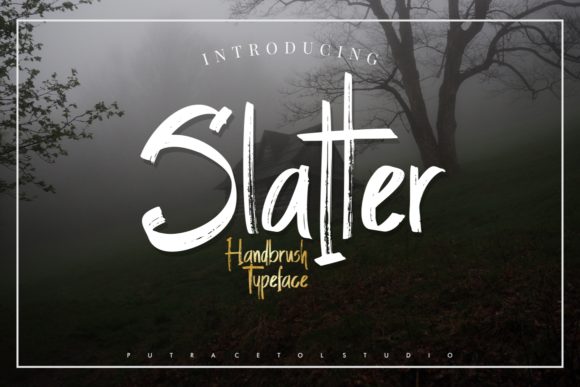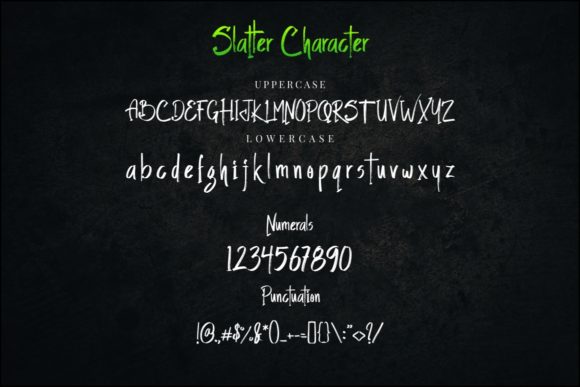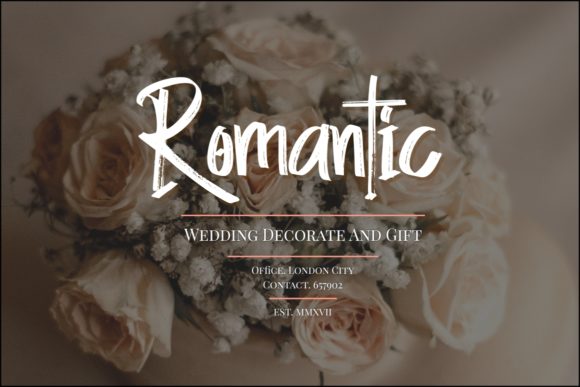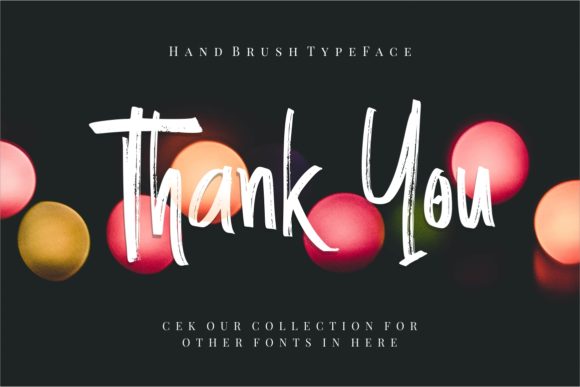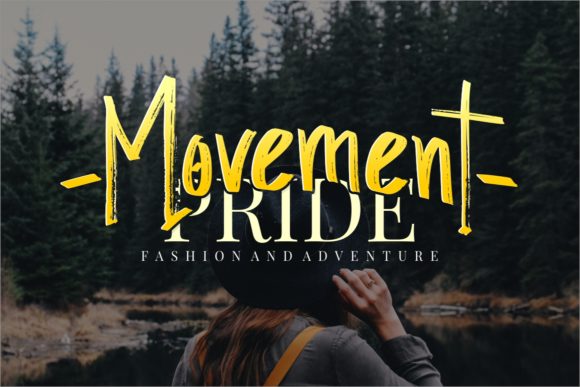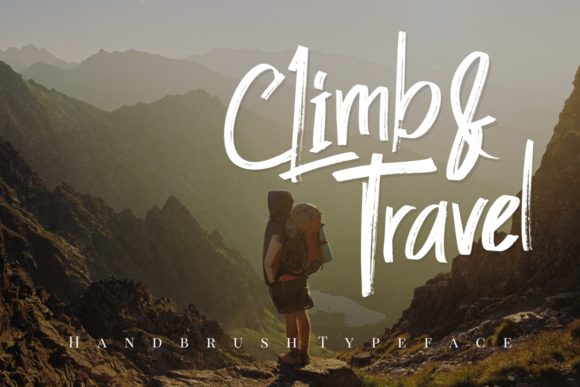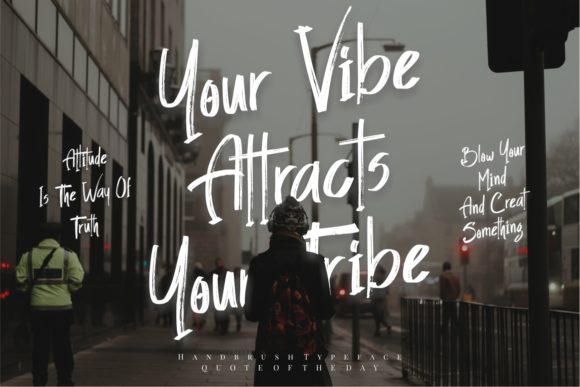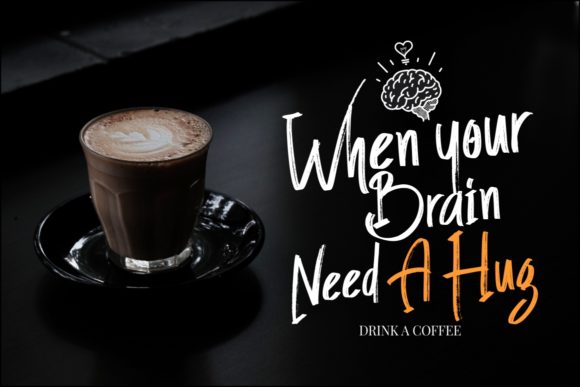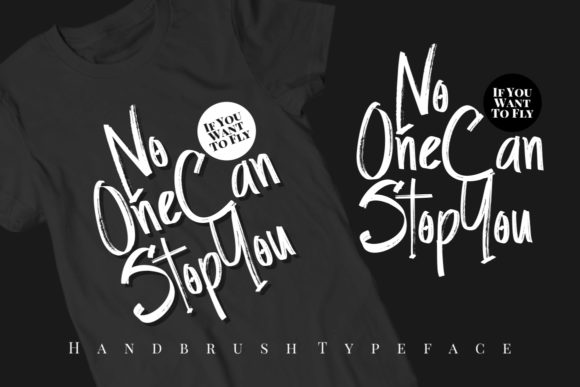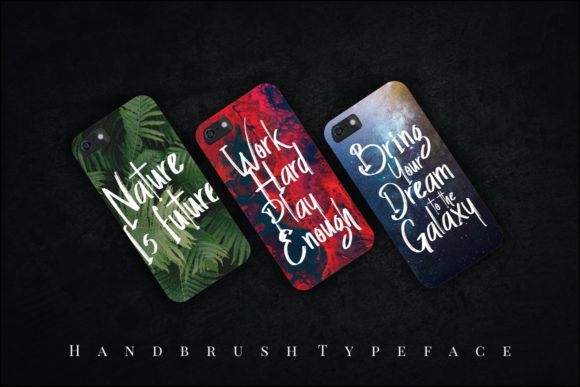
Slatter Font
About Slatter Font
Inspired by all things horror, Slatter is a dark and twisted brush font with a rough feel. It will add a sinister feel to any design project.